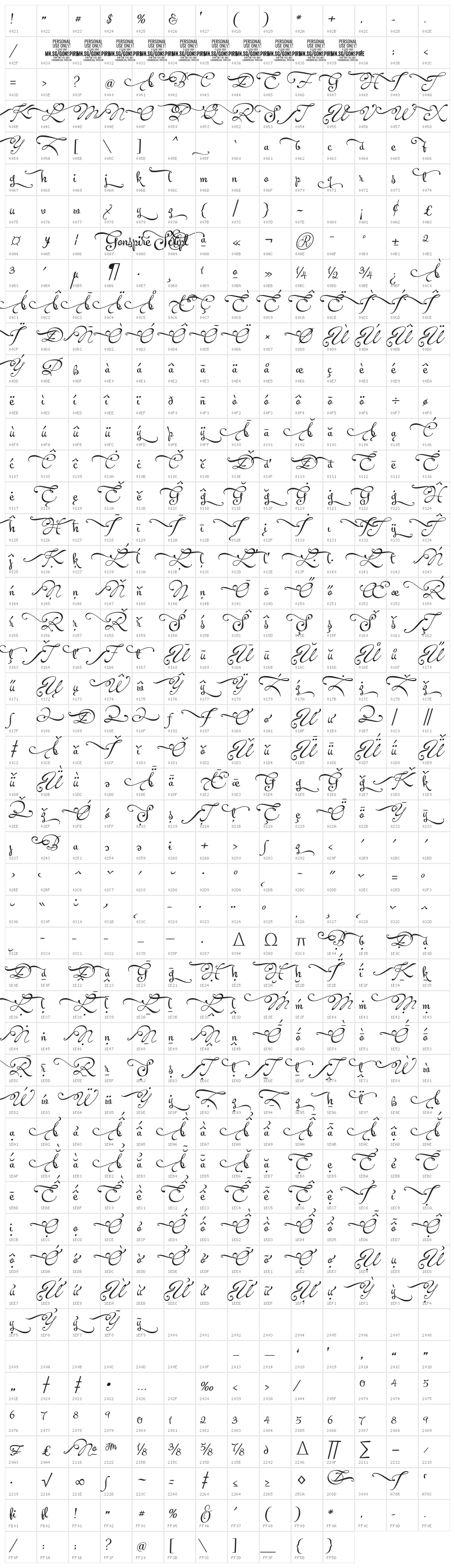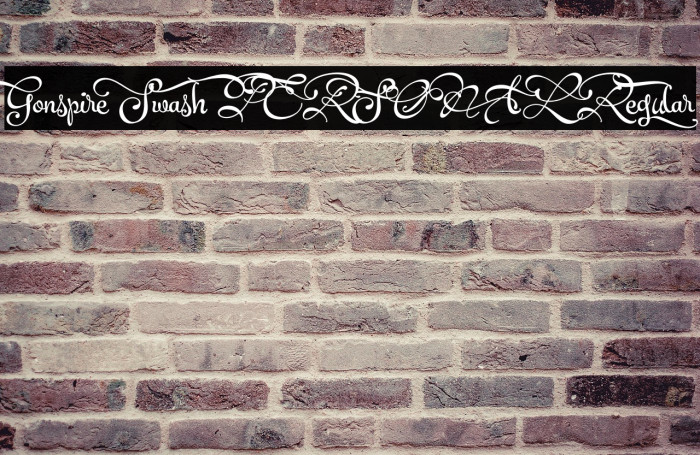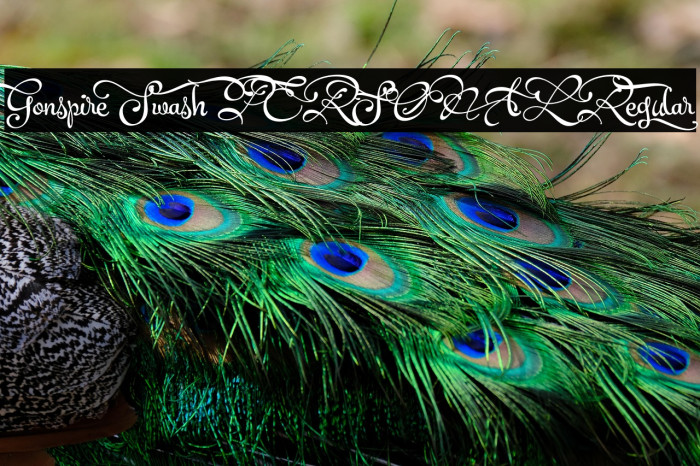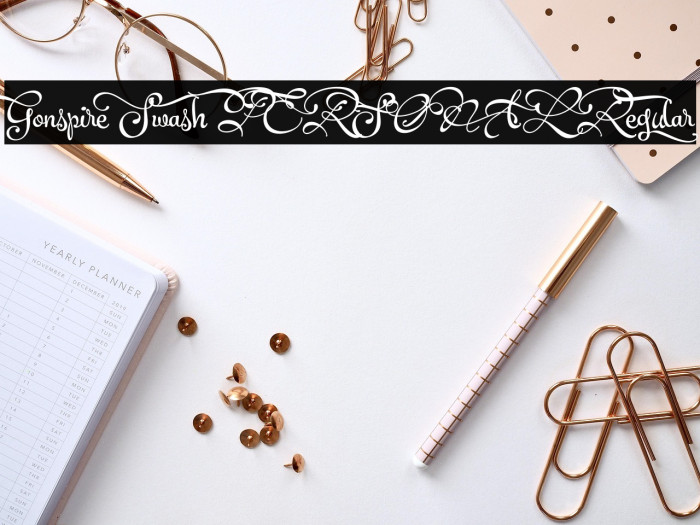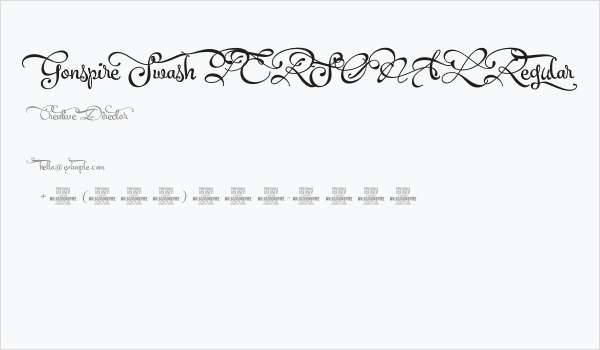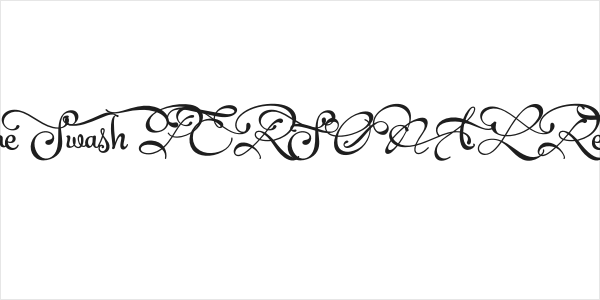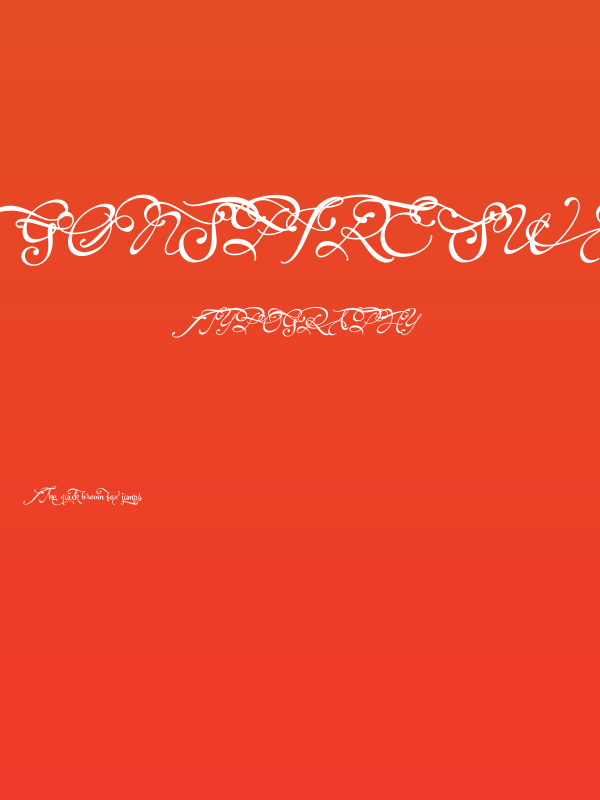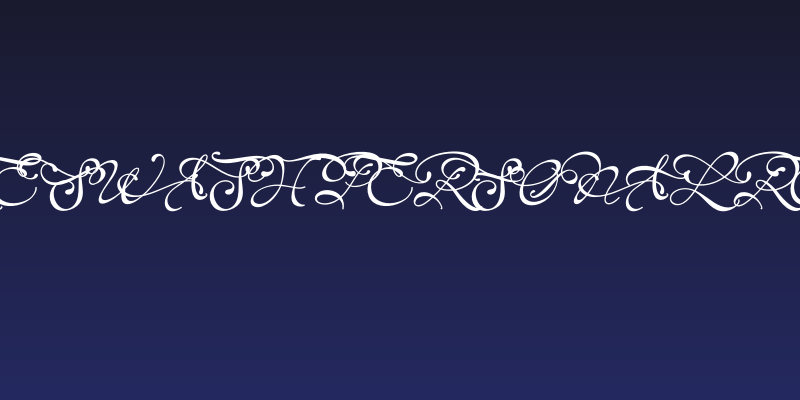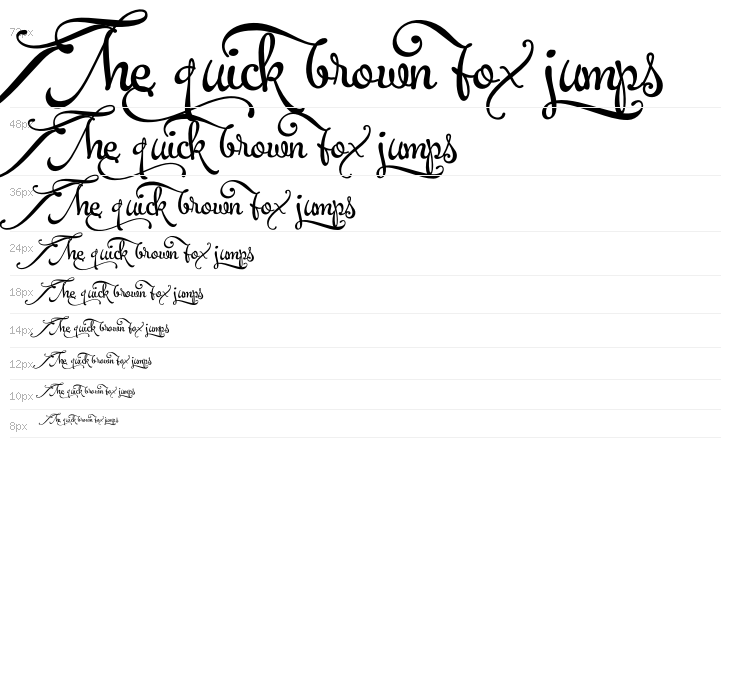
Gonspire Swash PERSONAL Regular Font
Gonspire Swash PERSONAL Regular Description
This font features an elaborate and decorative script style, characterized by its intricate swashes and flourishes. The uppercase letters are particularly ornate, with extended loops and curls that give a sense of elegance and sophistication. The lowercase letters maintain a consistent flow, complementing the uppercase with their own subtle embellishments. The numerals and special characters are designed to match the overall aesthetic, ensuring a cohesive look across all text. This font is ideal for projects that require a touch of luxury and artistic flair.
| Proposed Projects | Wedding invitations, luxury branding, elegant posters, and artistic book covers. |